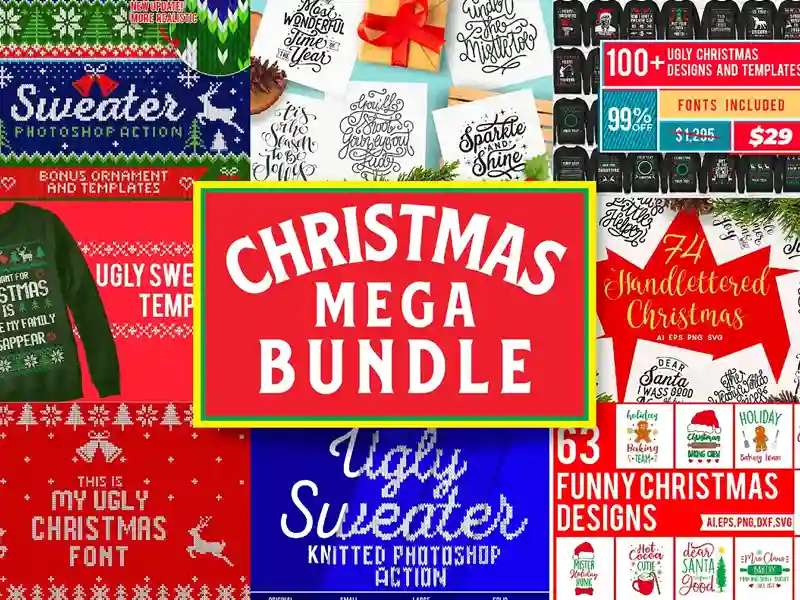
The Importance of Font Selection in Design
In design, the choice of fonts plays a pivotal role in conveying the intended message and setting the tone for visual communication. When it comes to festive occasions like Christmas, the selection of Christmas fonts becomes even more crucial in capturing the spirit of celebration and joy. Christmas-specific fonts from modern and playful to classic and timeless, fonts add a touch of festive flair to design projects, setting the stage for a visually captivating holiday season.
Incorporating Holiday Fonts in Design
Selecting the Right Font for the Right Mood is the real test of any graphic designer. Choosing the appropriate font is akin to selecting the right melody for a song. Each font carries a distinct mood, which is crucial for effective design communication.
Font Pairing Strategies for a Harmonious Design
Pairing fonts is an art that requires a keen eye for balance. The selection of designers explores strategies for harmonious font pairings that enhance the overall visual appeal of holiday-themed designs.
Application in Various Design Elements
Fonts are versatile elements that can be applied across various design projects. From greeting cards to website banners, understanding how to apply these fonts ensures their effective utilization. It is highly recommended that the same set of chosen fonts should appear across the campaign. For example, if you are designing for Christmas then the event and mood of Christmas in font should be obvious. In a world accustomed to dynamic visuals, The Christmas fonts engage the audience by aligning with modern design preferences. Its playful nature captures attention and conveys a sense of celebration.
The Holidays and Playful Mood With Christmas Fonts
Characteristics of The Holidays Font
Holiday fonts bring a contemporary and playful vibe to designs, making them ideal for projects that seek a modern aesthetic. There should be clean lines and whimsical shapes to add a touch of lightheartedness.
Creative Applications in Design With Christmas Fonts
Whether used in holiday party invitations or social media graphics, The Christmas fonts inject a sense of festivity and playfulness into designs. The versatile use of those fonts makes them suitable for a range of creative applications. You can use them in your favorite Adobe applications like Photoshop, InDesign, or Illustrator. You can also check Adobe Christmas fonts if you have Adobe’s subscription.
Integrating the Font in Festive Designs
Whether used in holiday banners or on champagne labels, Pop Clink injects celebratory vibes into designs. Its bold strokes and exuberant curves enhance the festive atmosphere. You can make the designs for Christmas using Adobe Christmas fonts at Adobe Express, a great resource for all kinds of designs.
Recommended Christmas Fonts
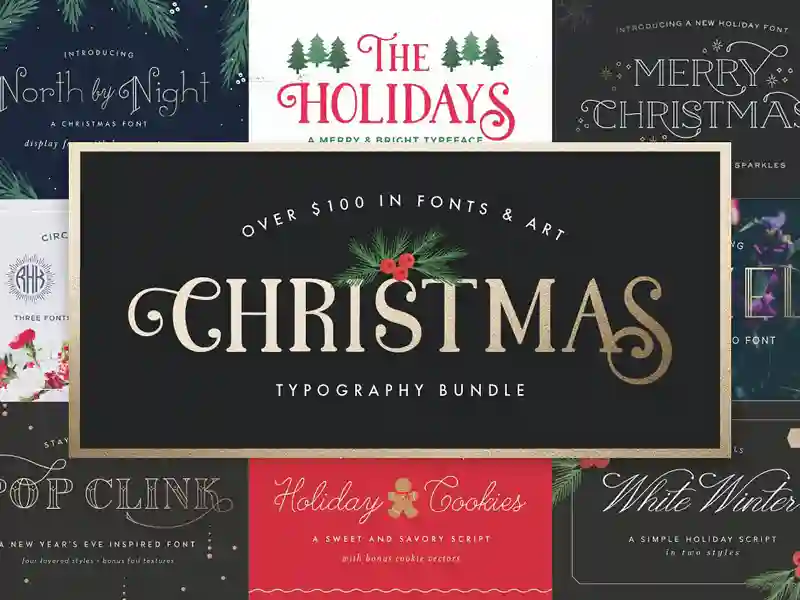
Christmas and
New Year-themed font
Christmas and New Year-themed font along with all matching bonus artwork.